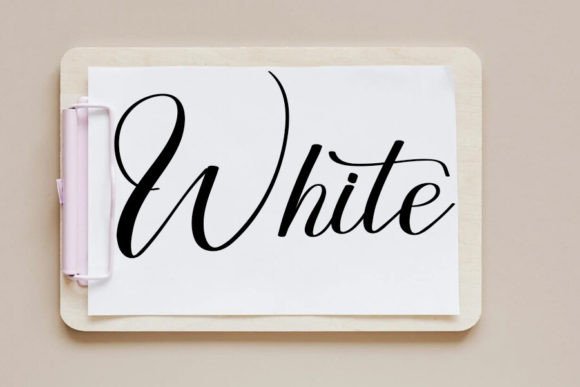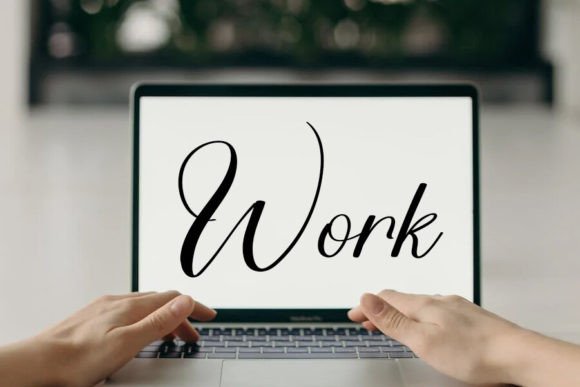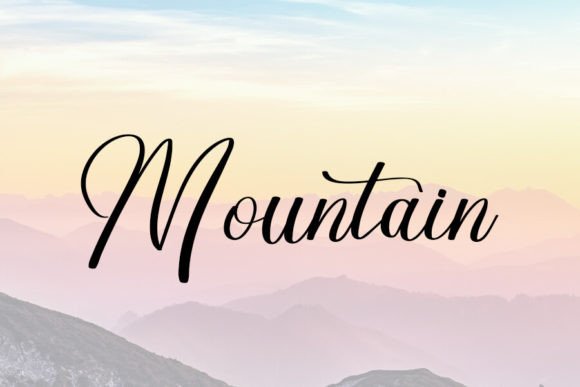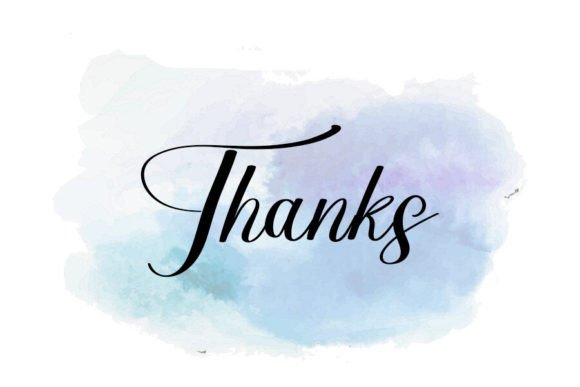
The Magic of Automatic Font: Unlocking Your Creativity
Have you ever sat down with a blank canvas, a spark of inspiration, and a pen that seemed to dance across the page? That’s the magic of creating something truly special. Whether you’re a seasoned designer or a crafty DIY enthusiast, there’s something about bringing an idea to life that gets your heart racing.
That’s where Automatic Font comes in – a stunning script font that’s as elegant as it is versatile. This beautiful font is perfect for adding a touch of sophistication to your social media posts, or elevating your DIY projects to new heights. And for designers, the Automatic Font is a valuable tool for adding a personal touch to their work, without sacrificing style or professionalism.
Key Features of Automatic Font
Automatic Font Review